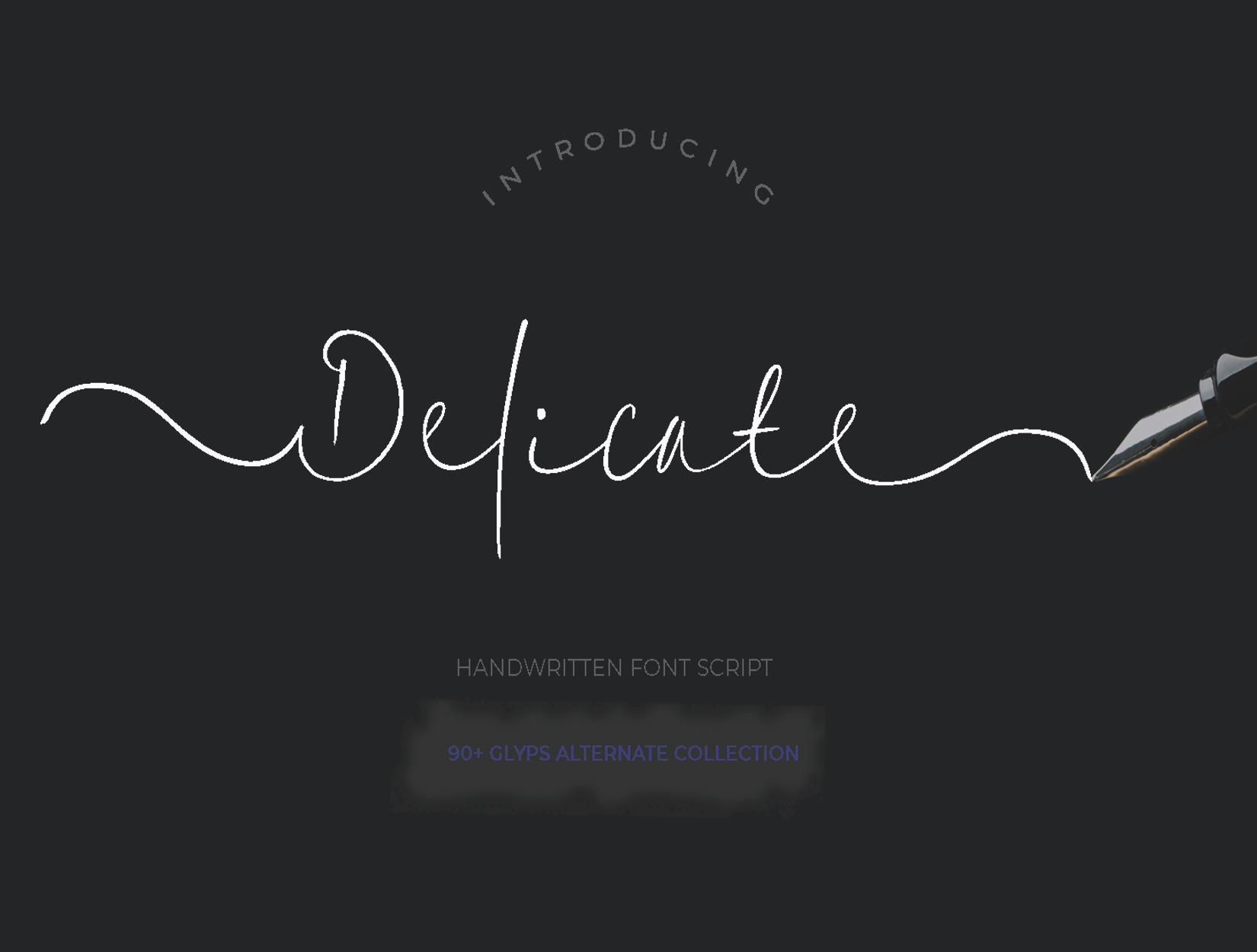
Delicate1 Font
Hello,.. Delicate1 is a beautiful script font. It maintains its classy calligraphic influences while feeling contemporary and fresh. This versatility will appeal to a wide range of crafty ideas, from letterheads and titles, to stationery.